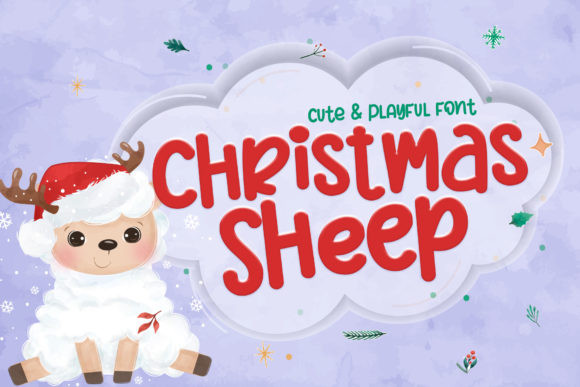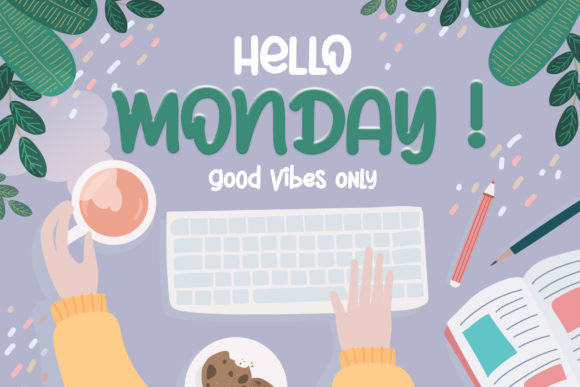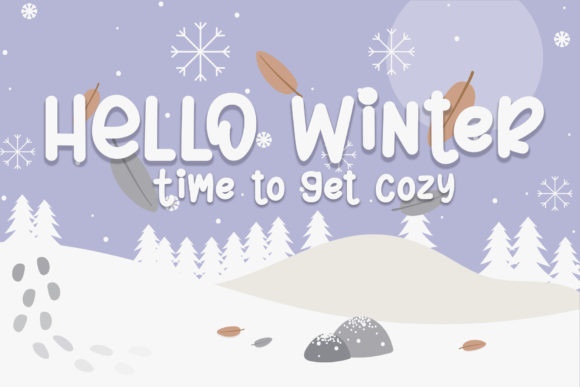
Christmas Sheep Font
Christmas Sheep is a modern and cute handwritten font. It embodies playfulness and authenticity and is the perfect choice for any children activity, school project or Christmas letter.